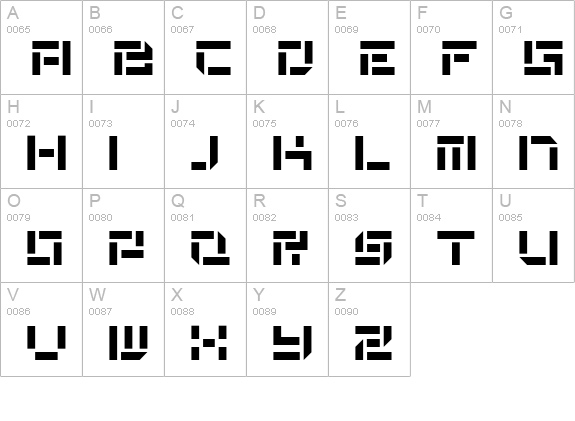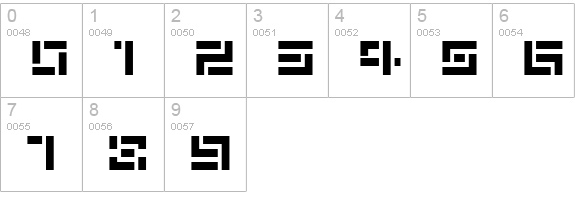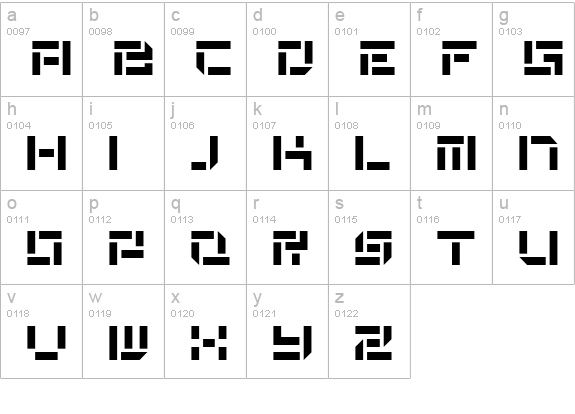
DeStencilNF Font Details
DeStencilNF is a versatile and contemporary font that combines a unique stencil design with modern aesthetics. With its clean lines and distinctive cutouts, this font is perfect for creating eye-catching headlines, posters, and branding materials. The bold and impactful appearance of DeStencilNF makes it suitable for a wide range of design projects, from urban street art to sleek corporate presentations. What sets DeStencilNF apart is not only its striking visual appeal but also its accessibility. This font is available for free download at FontsMarket.com, making it easy for designers and creatives to incorporate it into their work without any cost. Whether you're looking to add a touch of edginess to your designs or make a bold statement, DeStencilNF is the perfect choice for all your typographic needs. Download it today and unleash your creativity with this stylish and modern font.